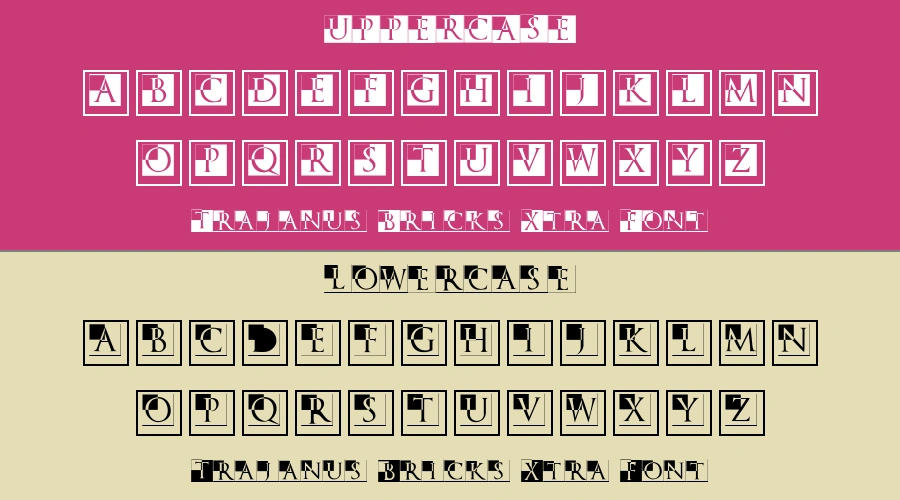
About Trajanus Bricks Xtra Font
Trajanus Bricks Xtra Font represents a sophisticated approach to type design, balancing hairline details with personality. Perfect for advertising campaigns, this font family showcases impressive expressiveness and uniqueness throughout its character set. Designers appreciate its versatility and reliability.
Designers will appreciate nuanced touches including ligatures and proportional figures, adding sophistication to any project. These features become apparent in exhibition materials, where format conversion matters most. The careful treatment of ear formation and character ensures optimal performance.